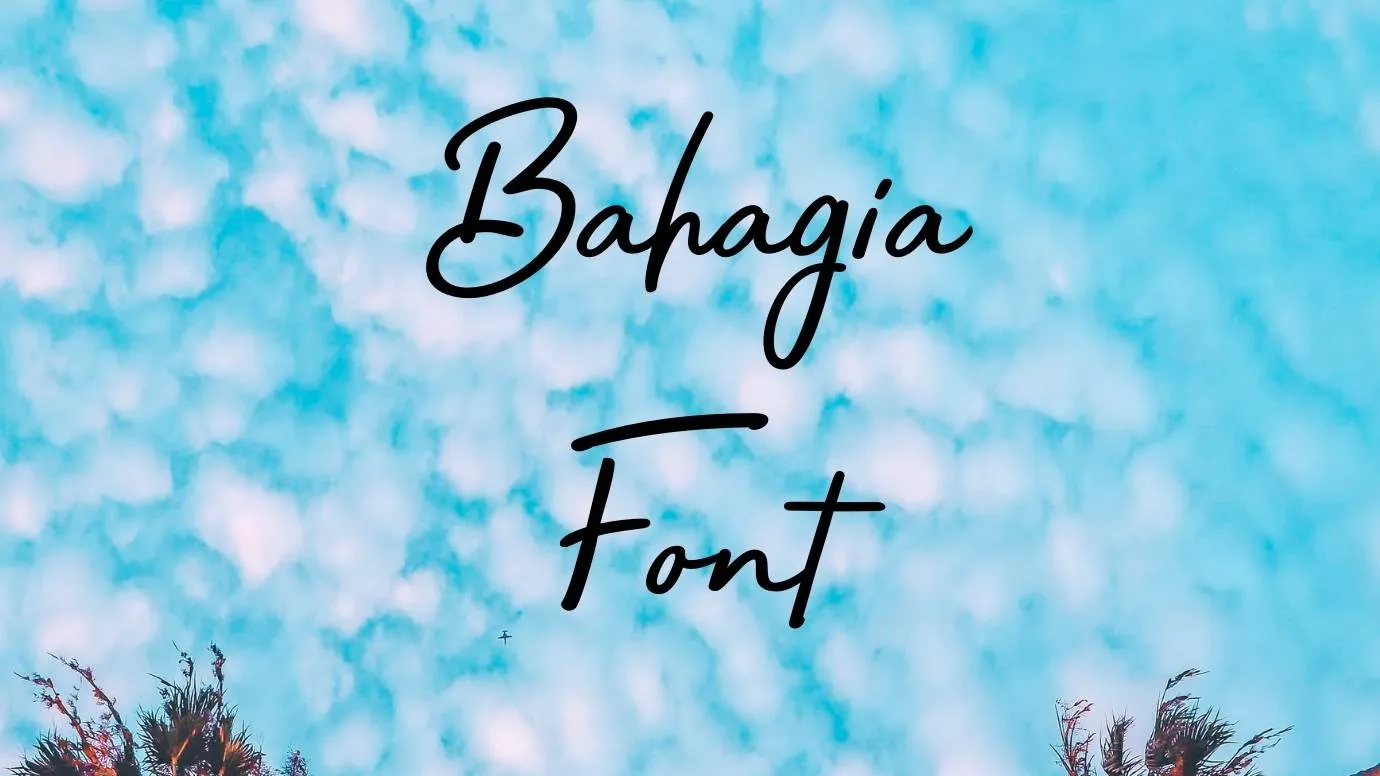
Bahagia font family is a stunning font that is a fantastic script typeface. This typeface was designed and published by Locomotype Studio. It comes in beautiful and excellent characters including basic punctuation marks, currency symbols, and a few special characters.
This typeface has 250 glyphs along with 1024 units per em. Each glyph of this typeface makes several designs. The well-arranged and good spacing characters make your designs more beautiful and eye-catching. Dynalight Font is the best example of its best alternatives to this typeface.